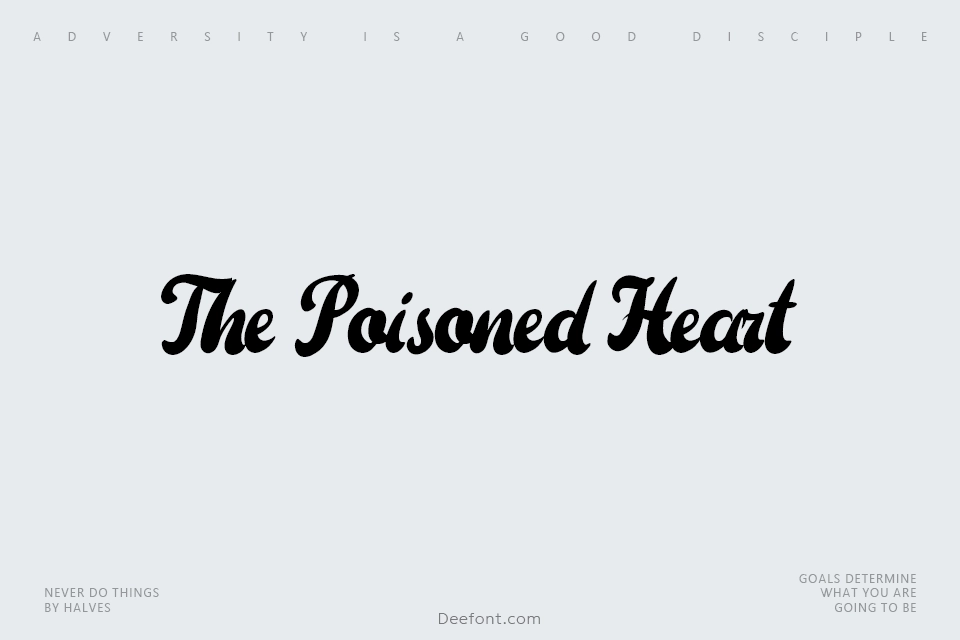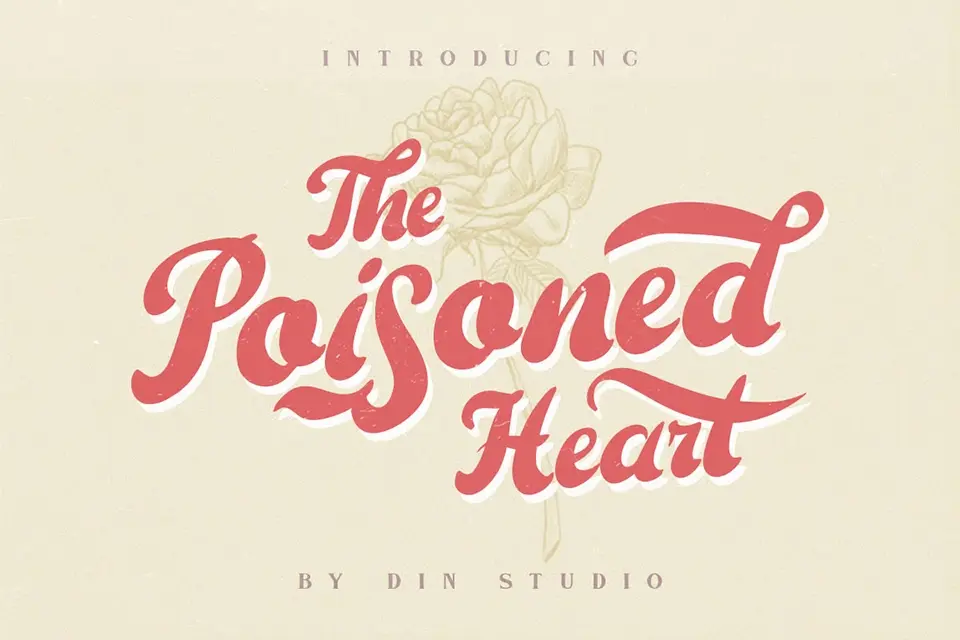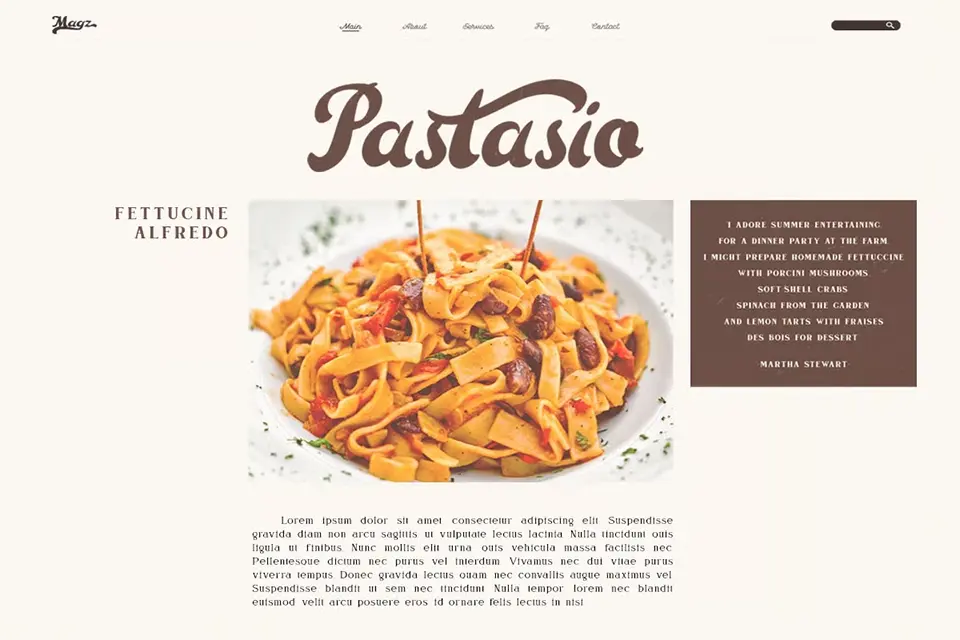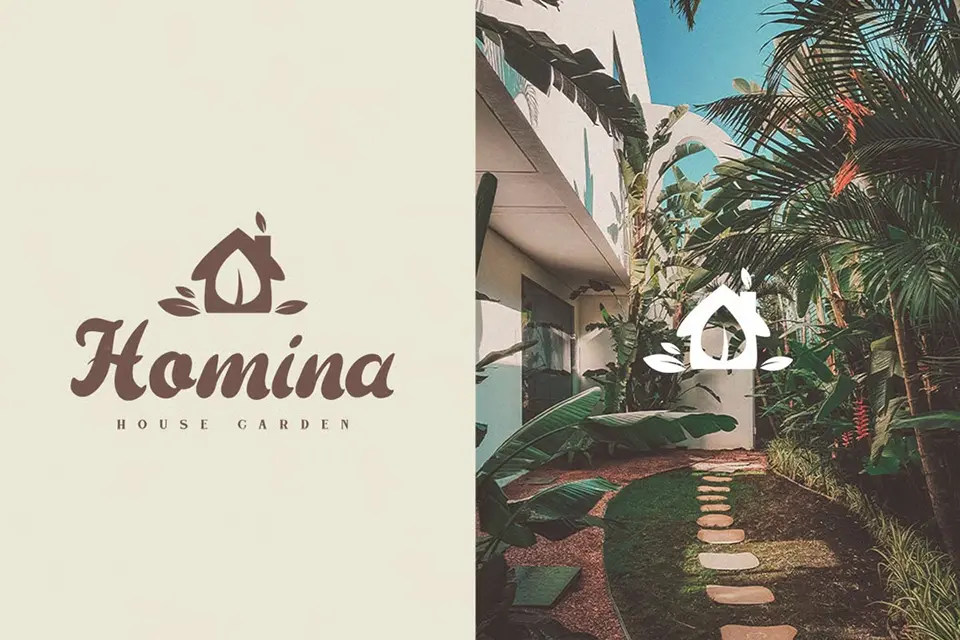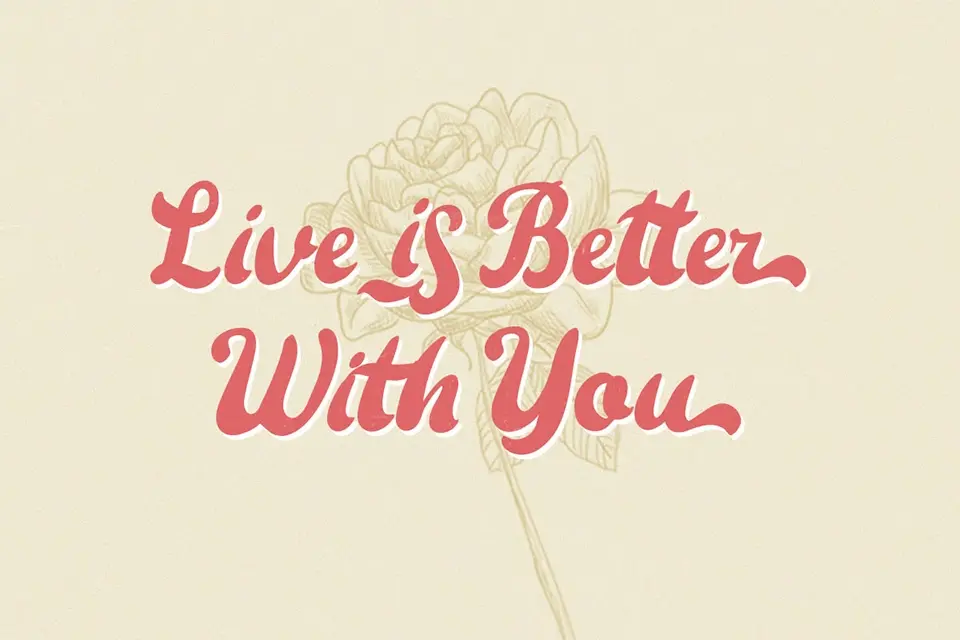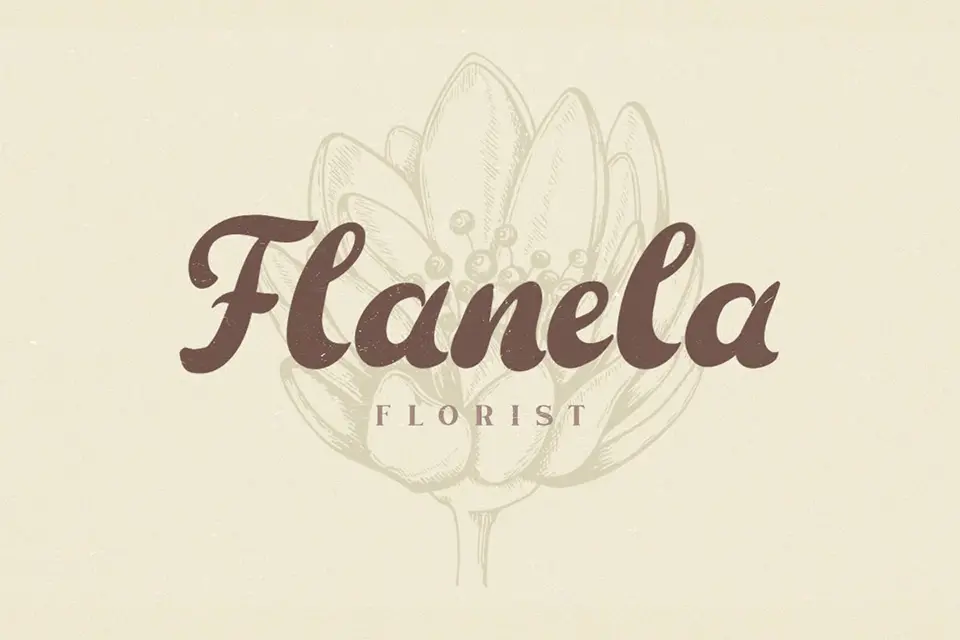
The Poisoned Heart Font
The Poisoned Heart is a beautiful retro script font crafted with naturally handwritten aesthetics. Designed by Din Studio, this elegant typeface combines vintage charm with modern sensibilities, featuring 76 alternates, 10 ligatures, and extensive multilingual support. Perfect for branding, wedding invitations, lettering projects, and creative design work, this display font brings sophistication and character to any visual composition.